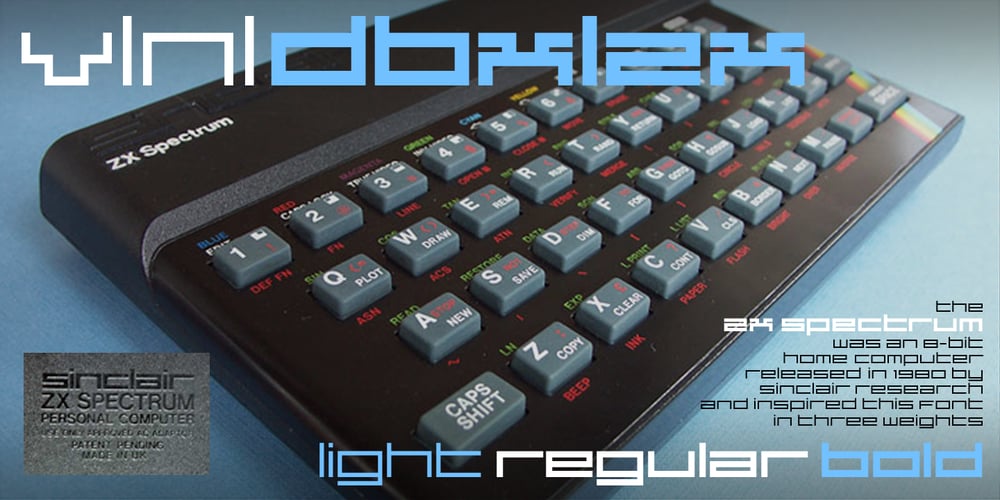
VLNL DBXLZX
VLNL DBXLZX font
VLNL DBXLZX Font Family was designed by Donald Beekman and published by VetteLetters. VLNL DBXLZX contains 3 styles and family package options. DBXLZX was inspired by the logo of the ZX Spectrum home computer, released in 1982 by Sinclair Research. For many designers the 8-bit pixel grid of the ZX Spectrum was one of the first steps into the realm of digital design. DBXLZX was initially developed by DBXL into a three weight family for use on the Armind record label of world famous trance deejay Armin van Buuren.